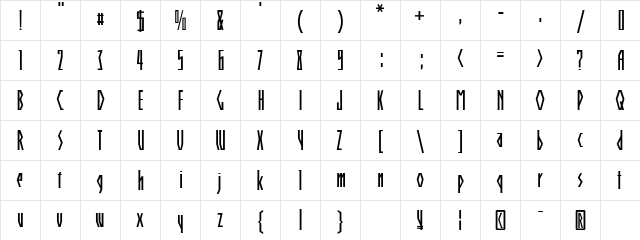
Clearregular Regular Font Preview
Clearregular Regular
Clearregular Regular Font Details
Design Context for Clearregular Typeface
Clearregular is a composed and adaptable typeface that performs quietly and consistently across a wide range of design contexts.